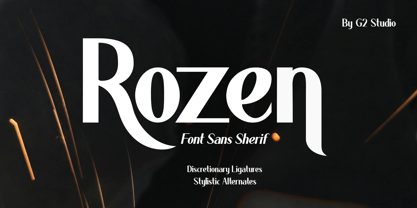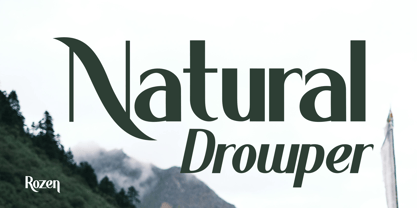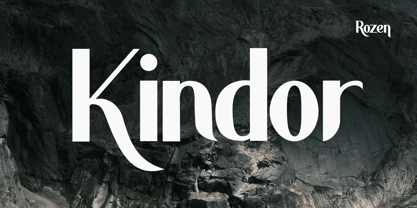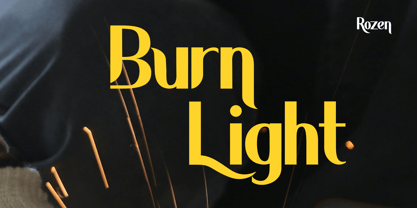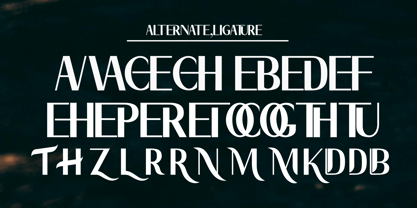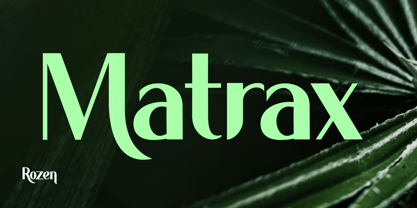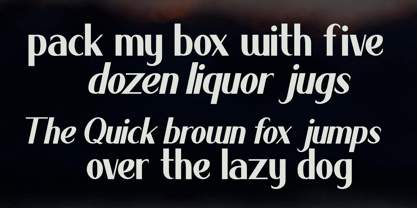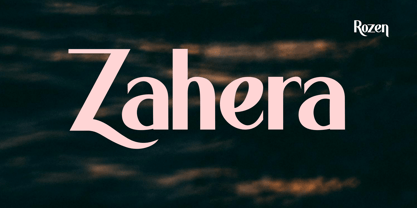
Rozen
by G2 Studio
The Rozen Font Family was designed by Eka Setiono and published by G2 Studio. Rozen contains 2 styles and family package options. More about this family
Rozen – High-Quality Modern Sans Serif
Rozen is a modern sans serif typeface featuring a clean and refined design that conveys a professional and elegant impression. Crafted to meet the demands of a wide range of visual projects, Rozen is ideal for branding, editorial layouts, presentations, and digital media.
G2 Studio is a creative foundry located in Purbalingga, Central Java, Indonesia, founded by Eka Setiono. The studio specializes in designing fonts and typography, creating unique and functional typefaces for both digital and print applications. G2 Studio aims to provide innovative typographic solutions, blending art with technology. Under the leadership of Eka Setiono, G2 Studio continues to grow as a hub for font design, committed to quality and creativity, while also showcasing the uniqueness of Indonesian typography to the global market.4o mini